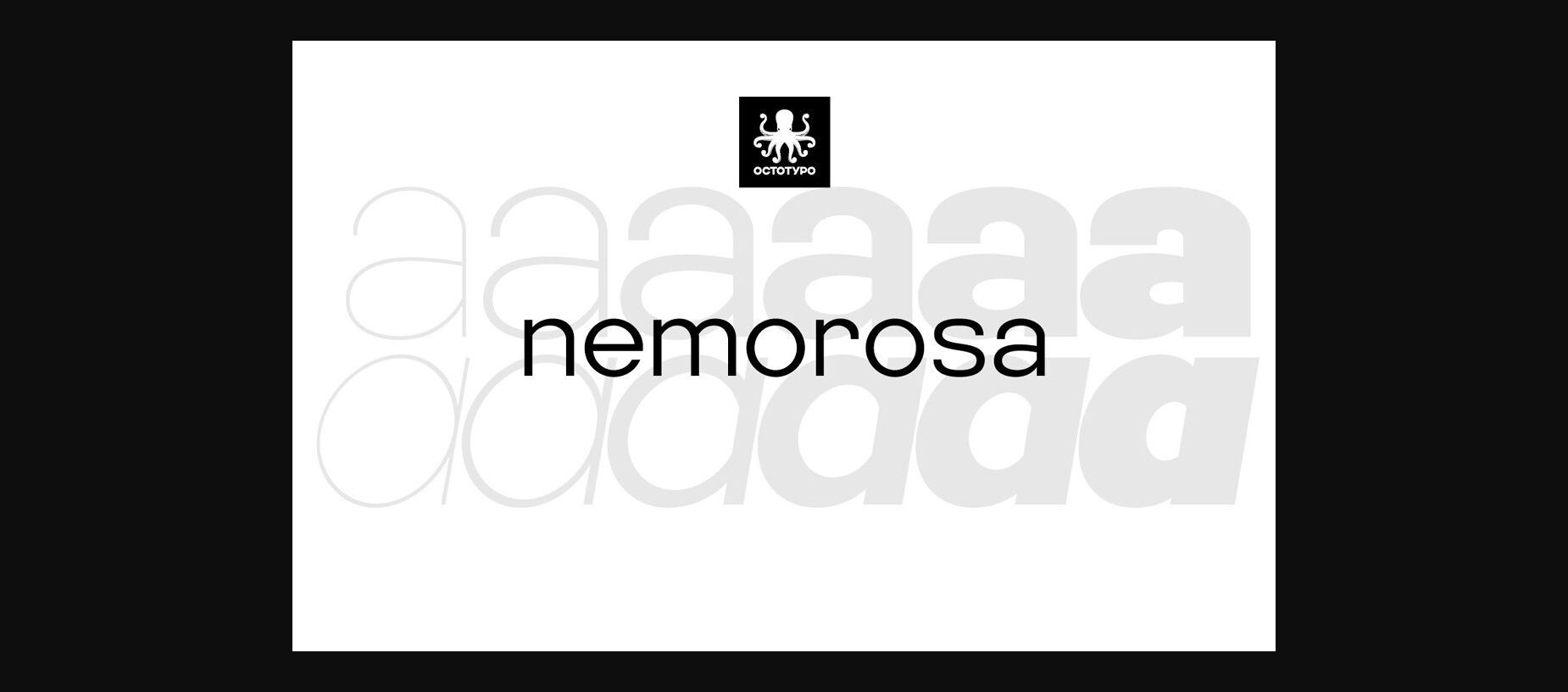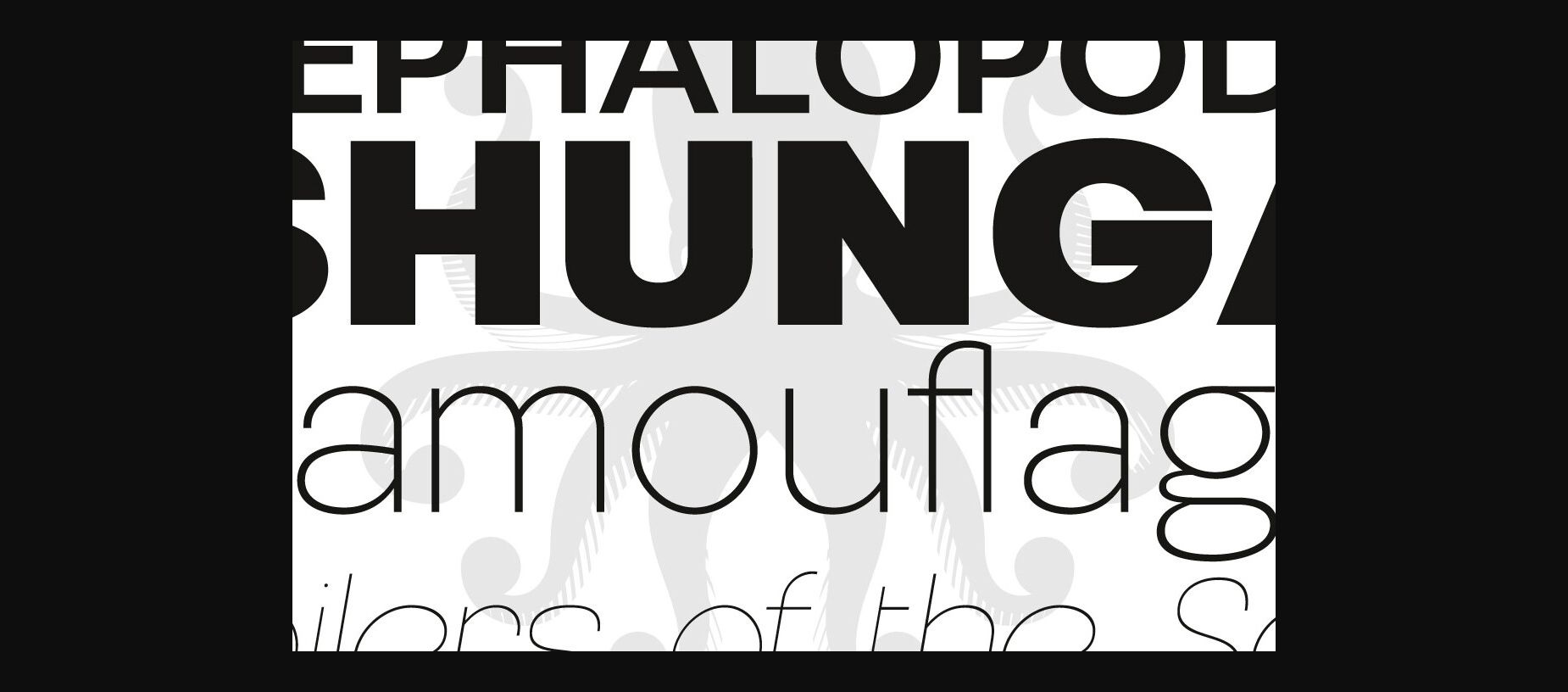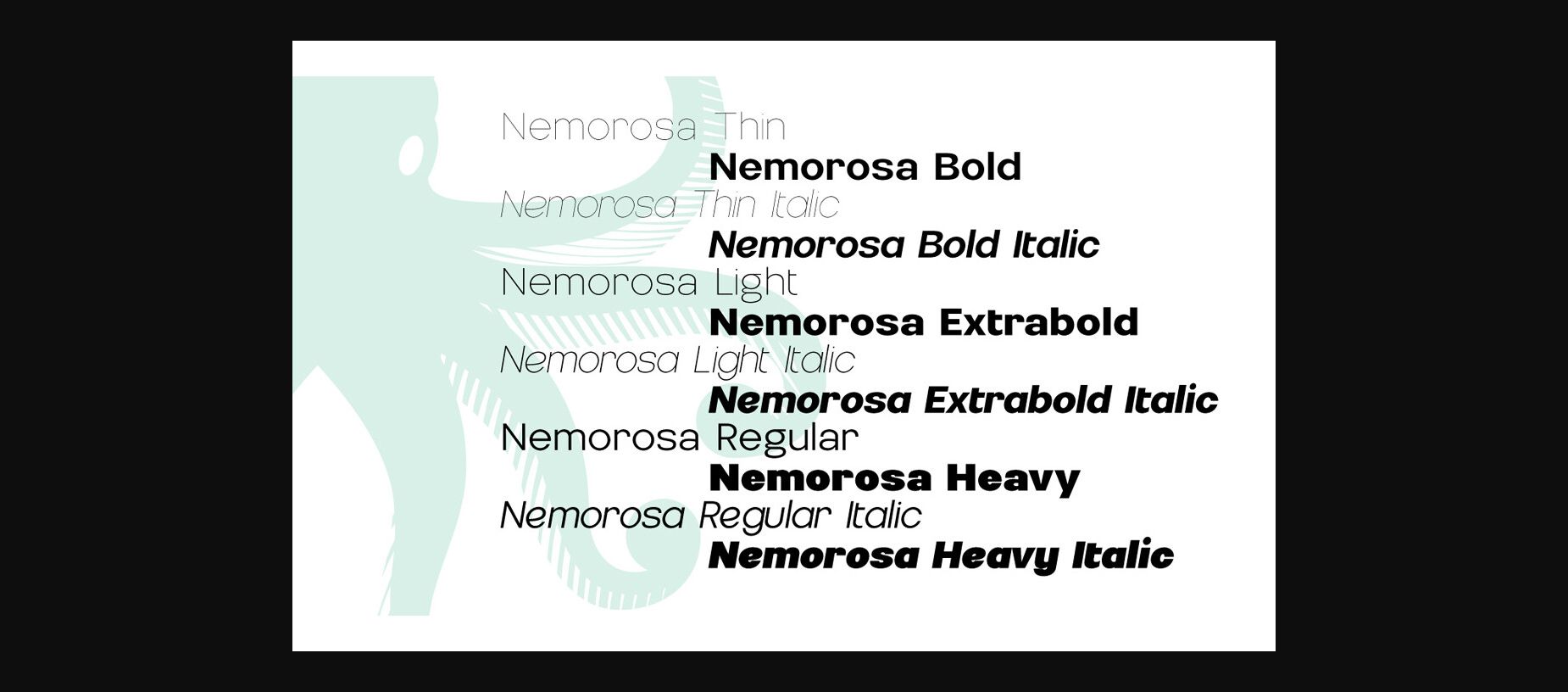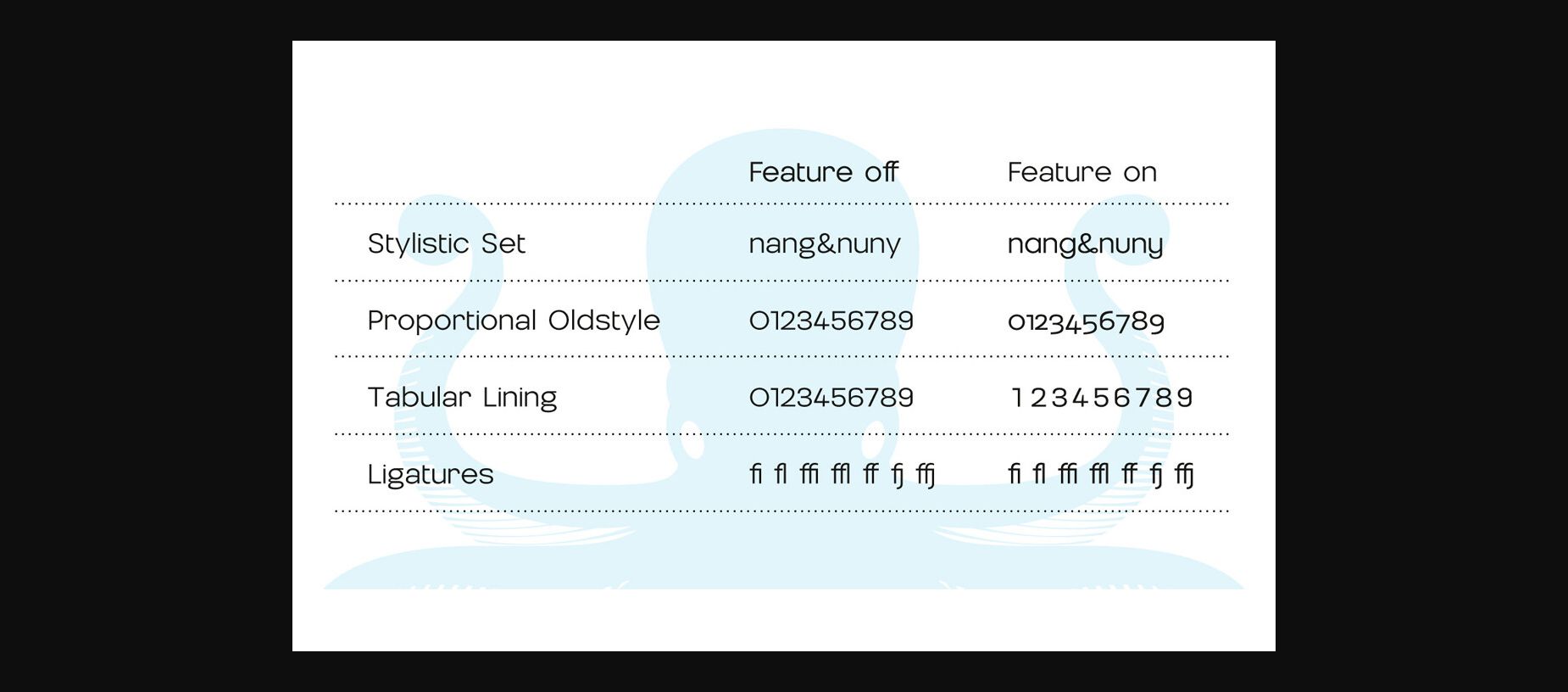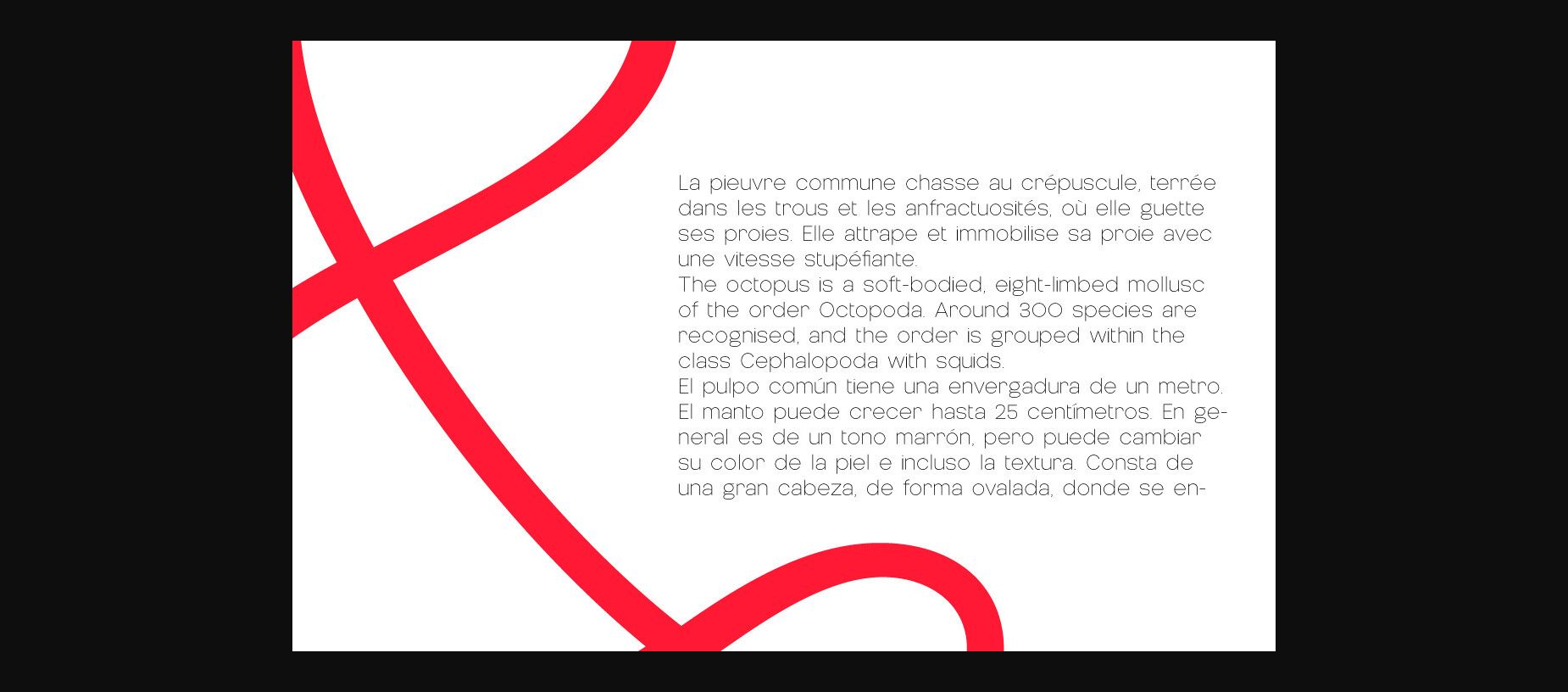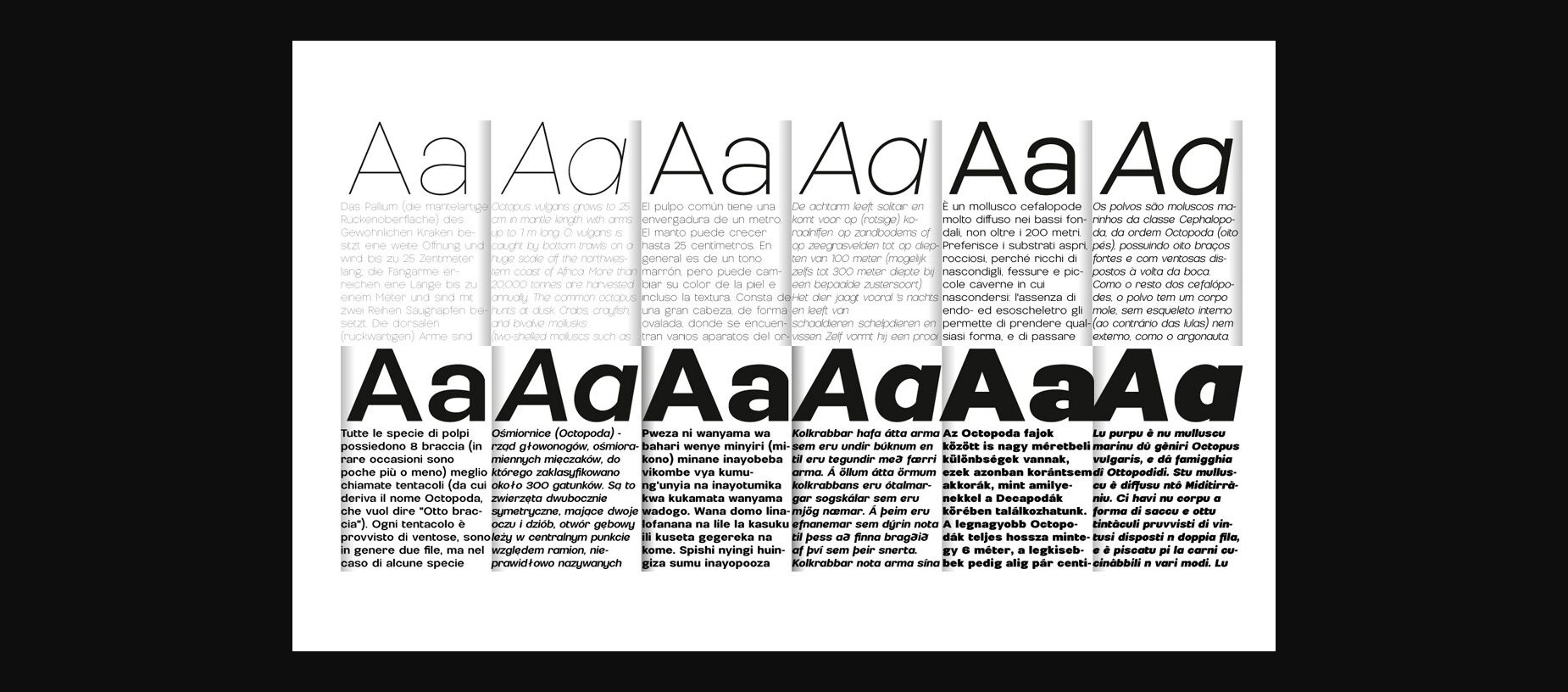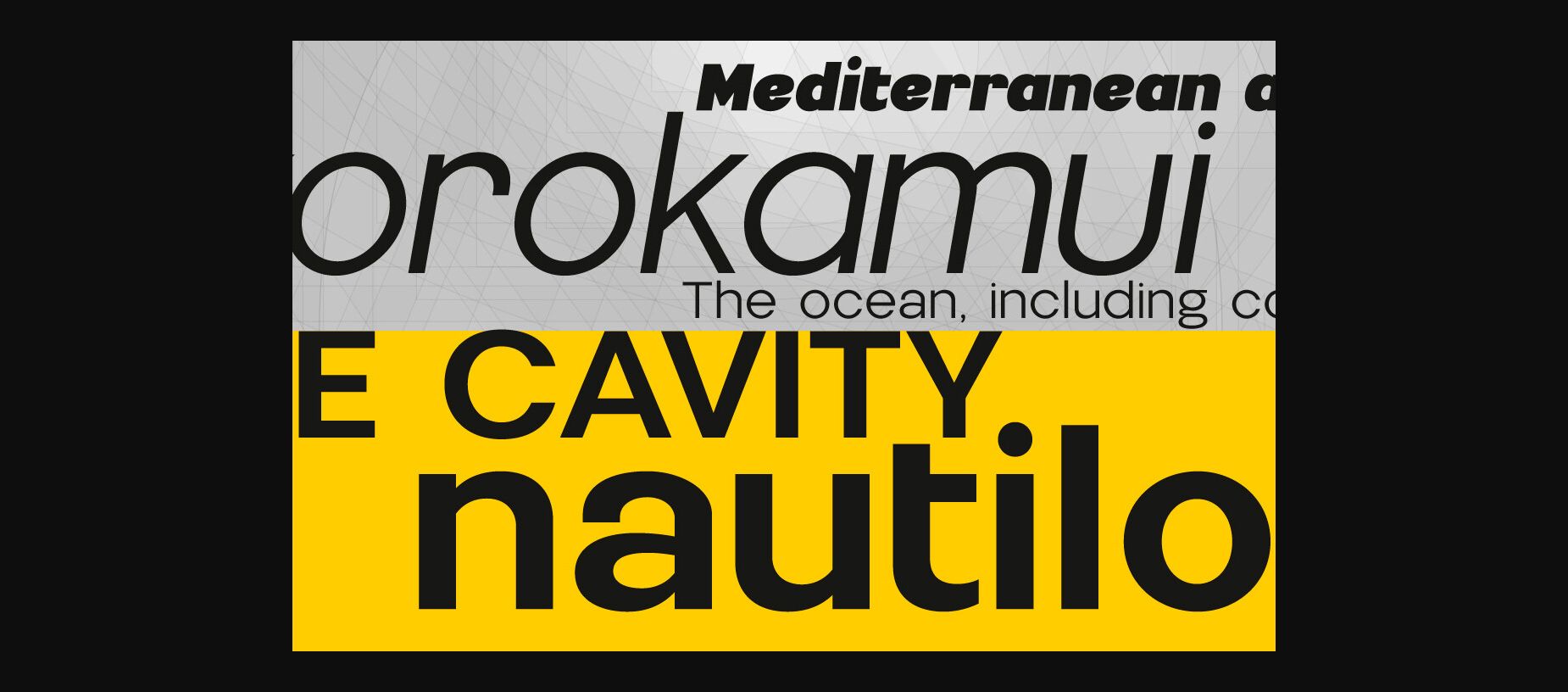
About Nemorosa Font
Nemorosa stands as a flexible font collection, exuding a nostalgic charm reminiscent of the sweet sixties era, infused with a modern geometric flair. Comprising six weights alongside italic variants, it also offers a range of alternates, allowing for creative combinations and fresh perspectives in text and logo design.
Tailored for both publishing and display purposes, Nemorosa effortlessly blends vintage allure with contemporary functionality, making it an ideal choice for various design projects.